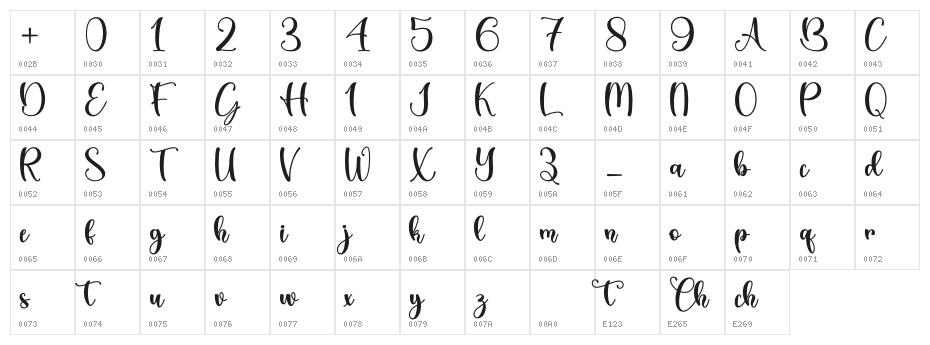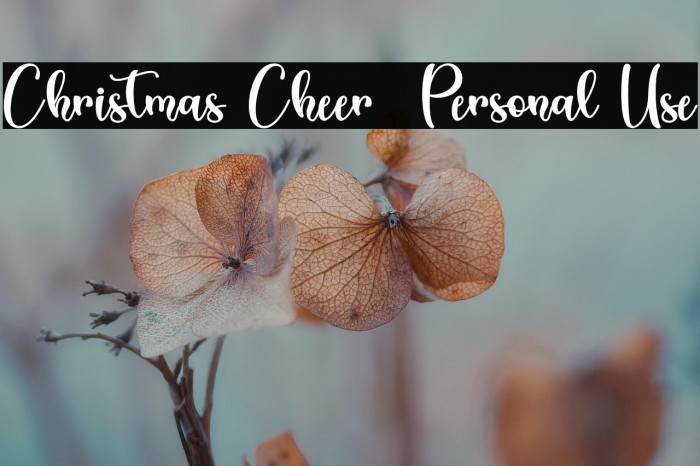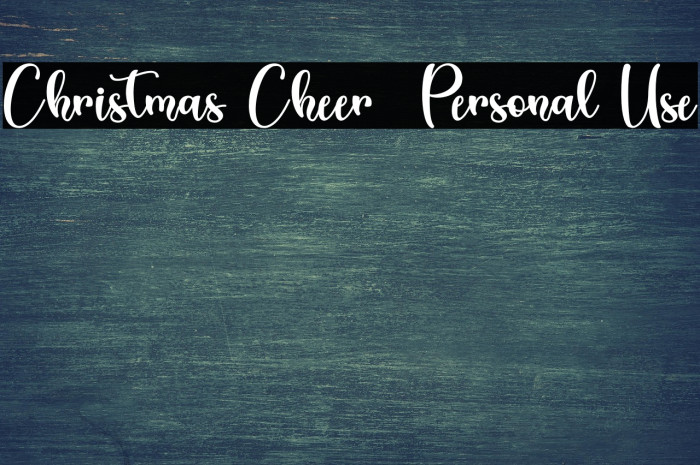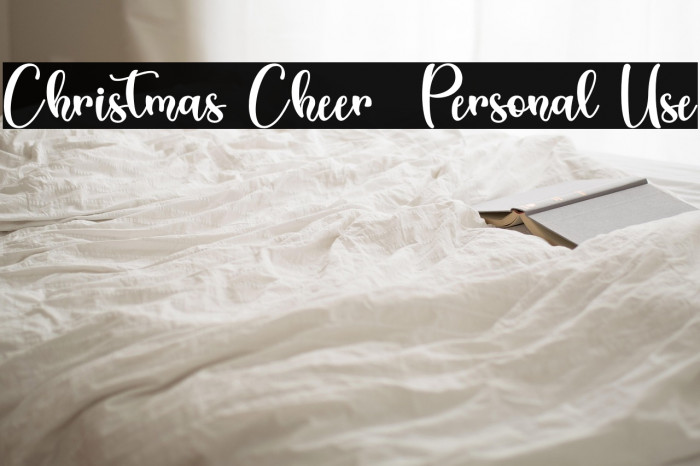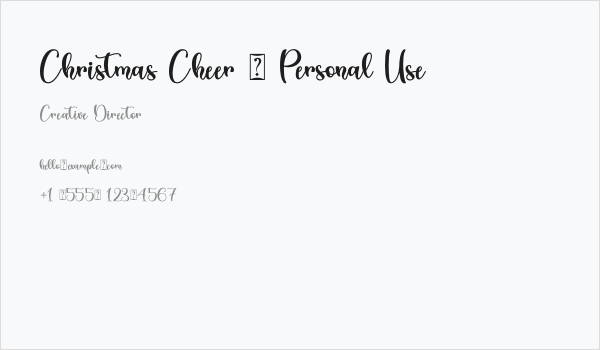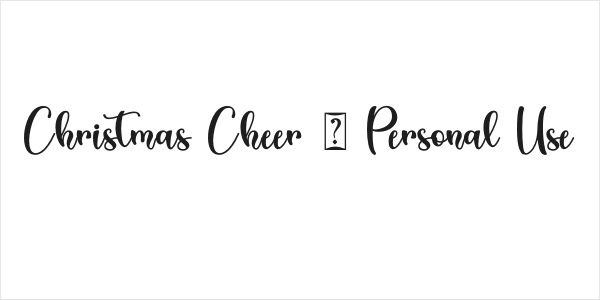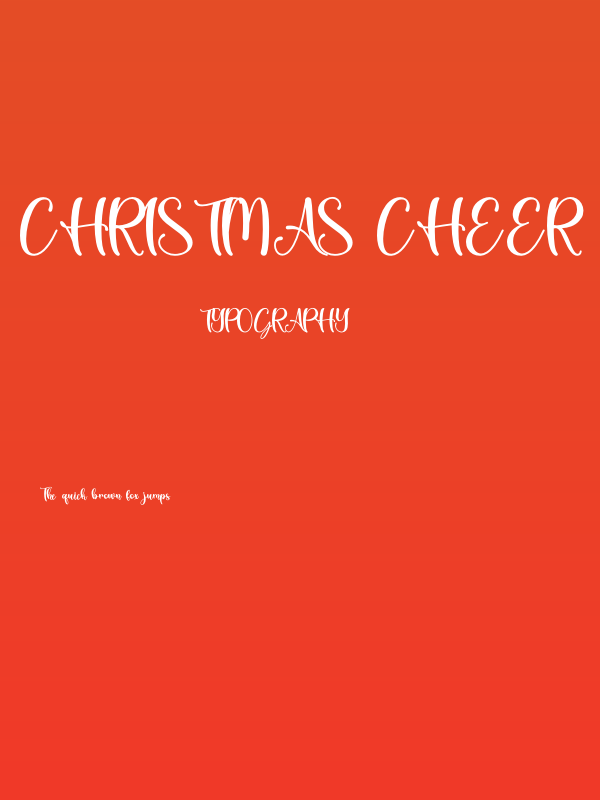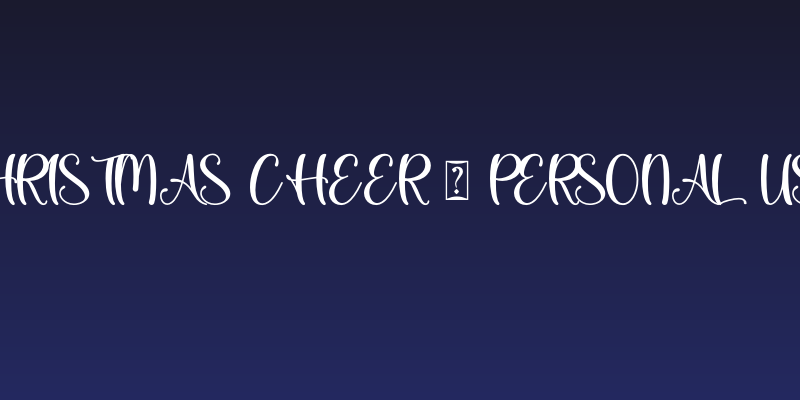
Christmas Cheer - Personal Use Font
Christmas Cheer - Personal Use Description
This font features a playful and festive script style, characterized by its flowing, cursive letters that evoke a sense of holiday cheer. The uppercase letters are bold and expressive, with elegant loops and swirls that add a touch of whimsy. The lowercase letters maintain a consistent style, with smooth curves and a slight slant that enhances readability. Numbers are crafted with the same playful flair, making them suitable for decorative purposes. The font's overall design is reminiscent of hand-lettered calligraphy, making it ideal for projects that require a personal and joyful touch.